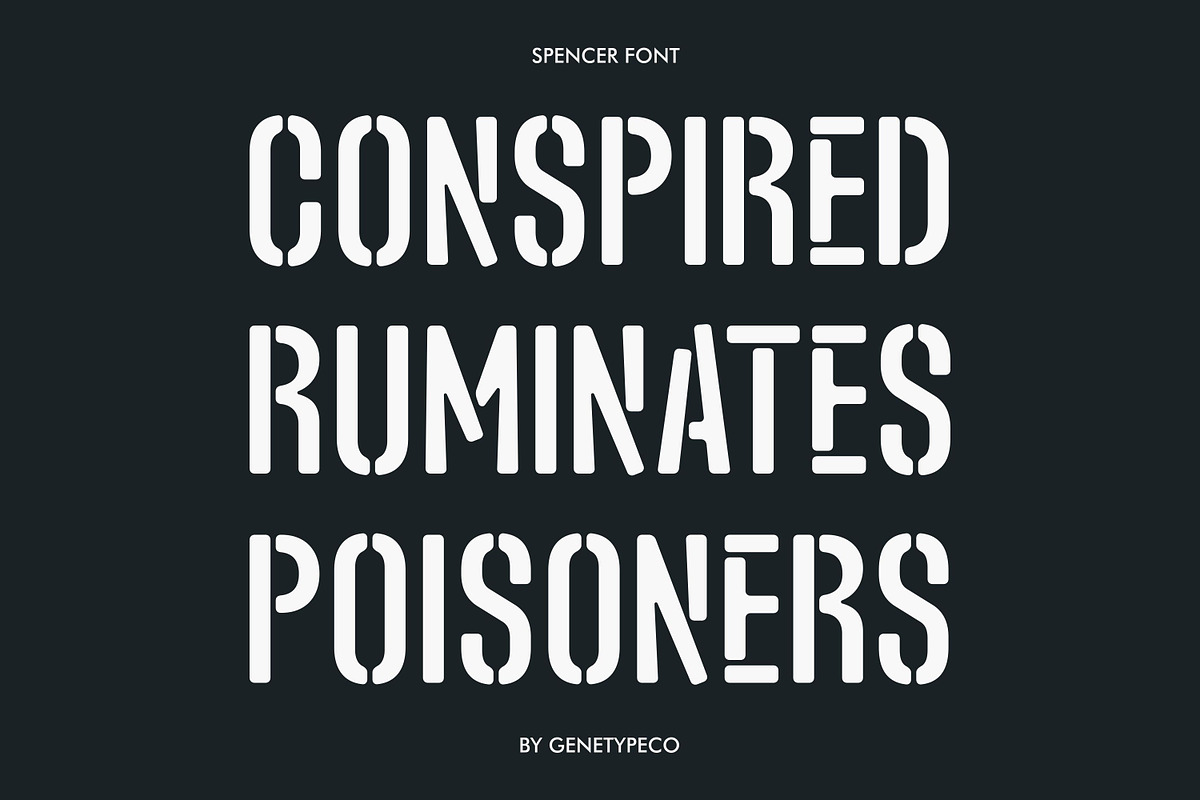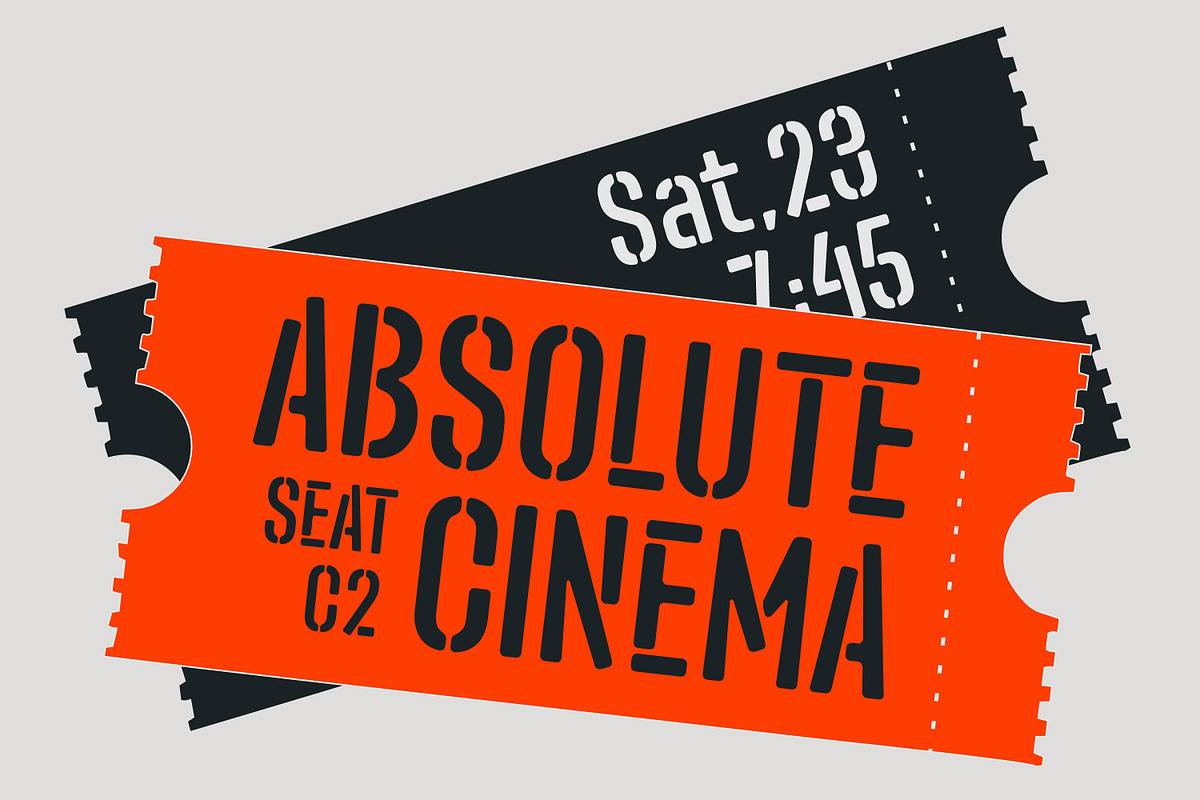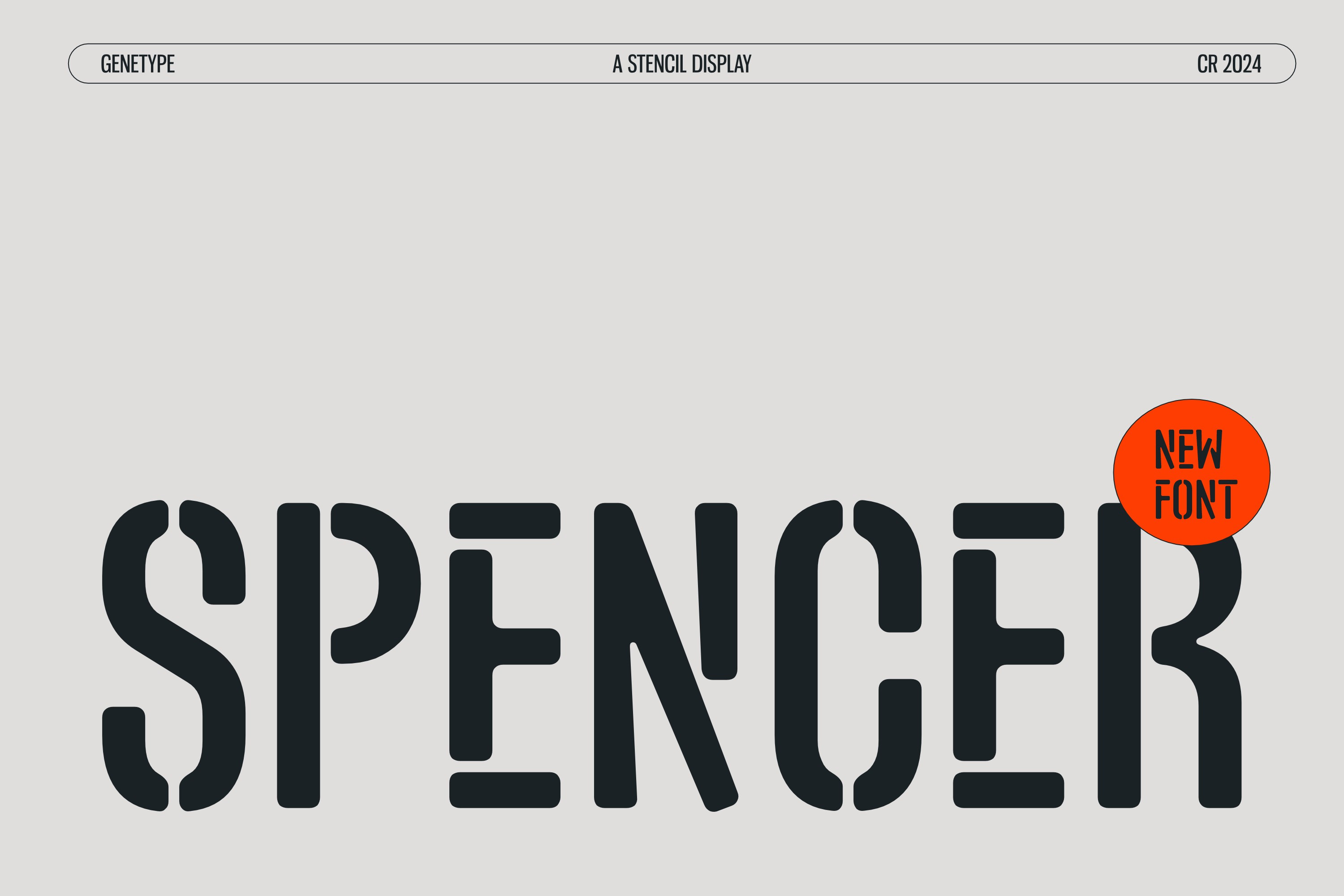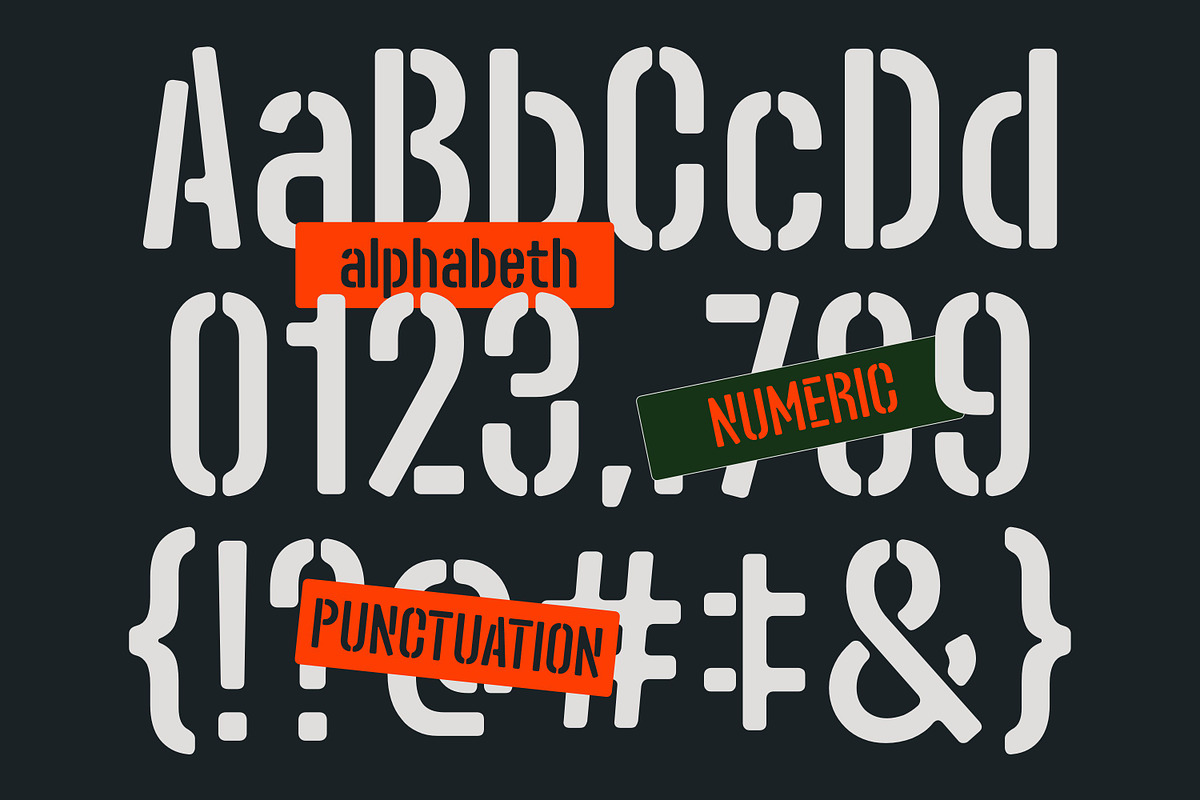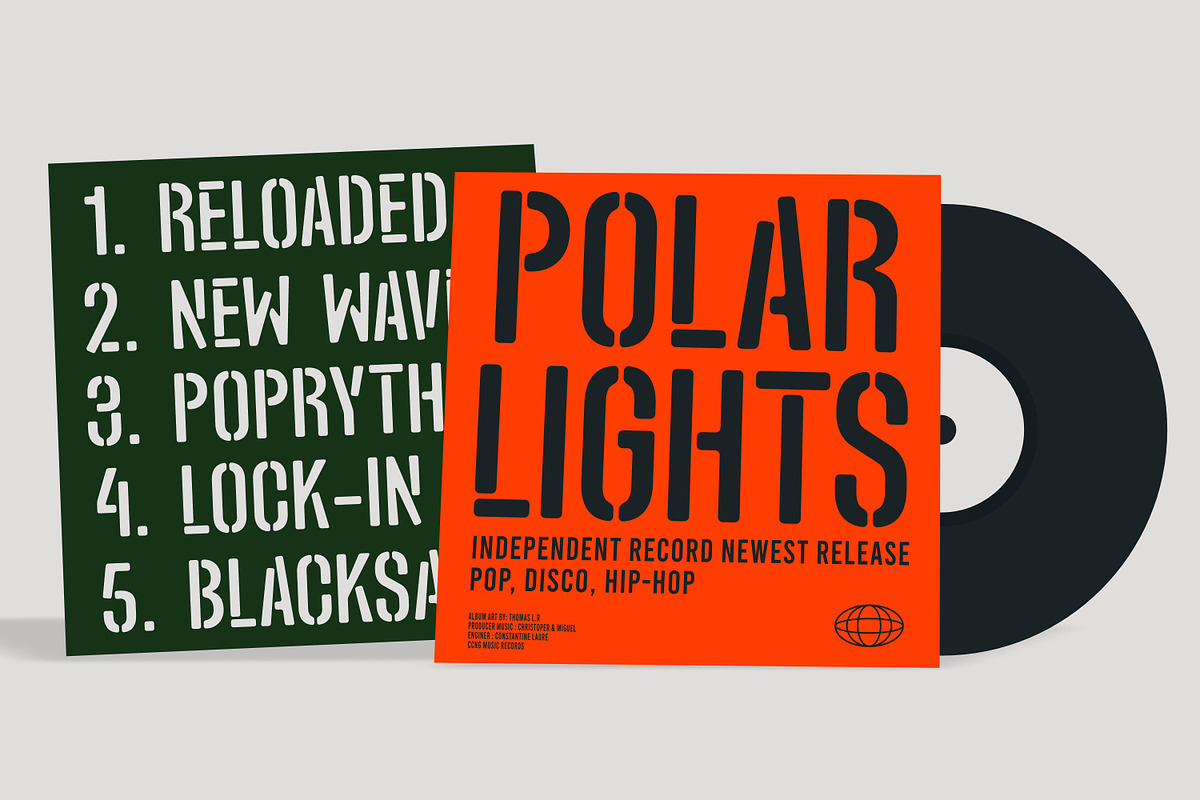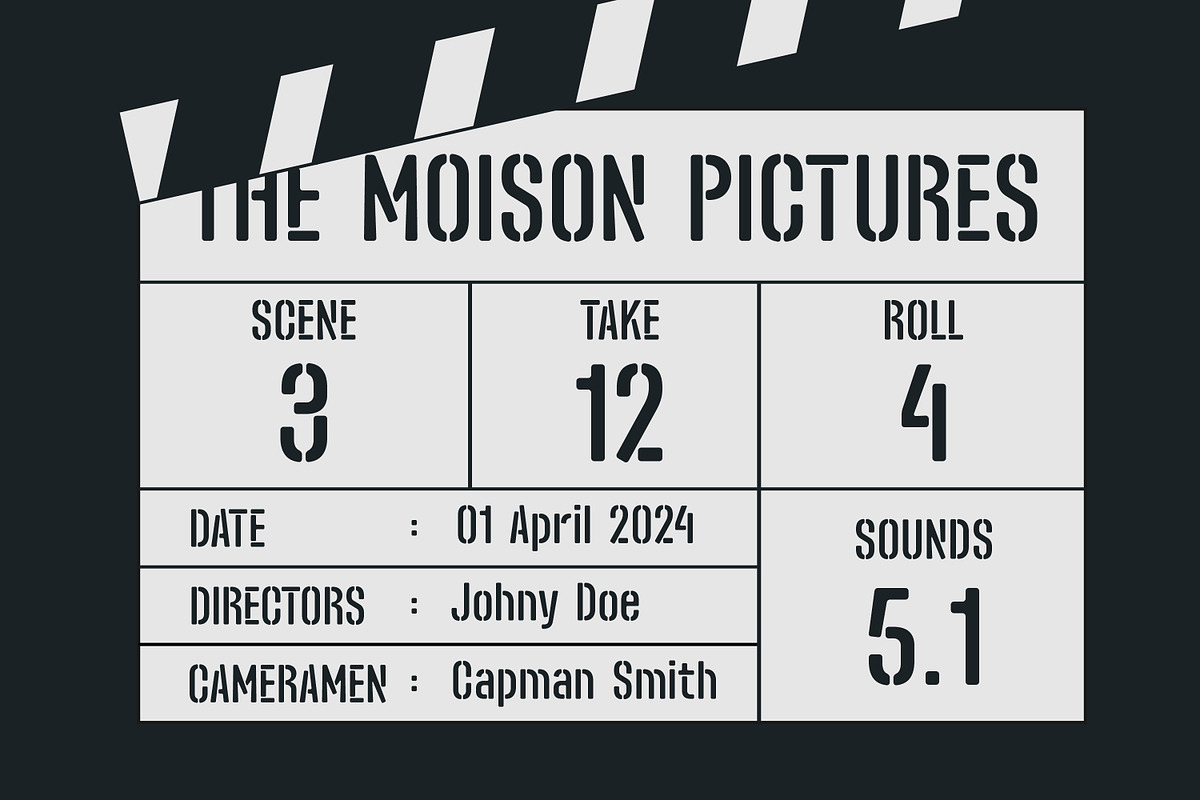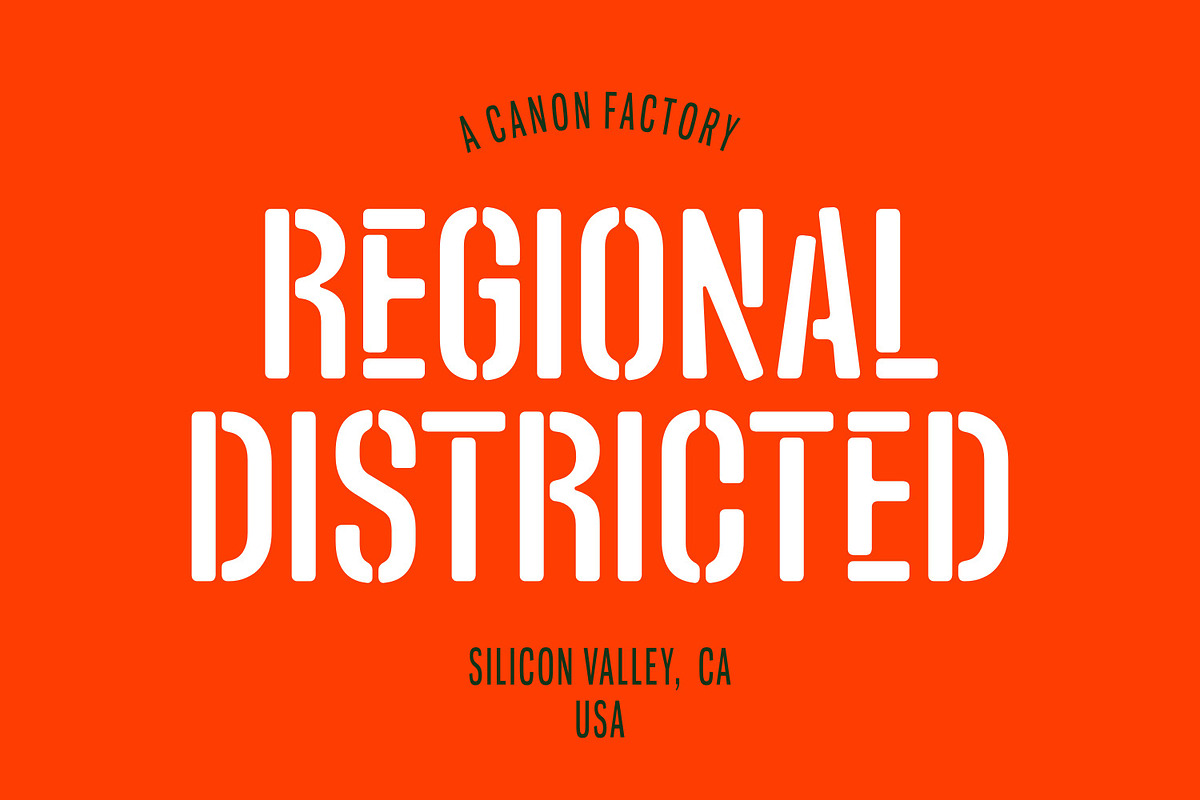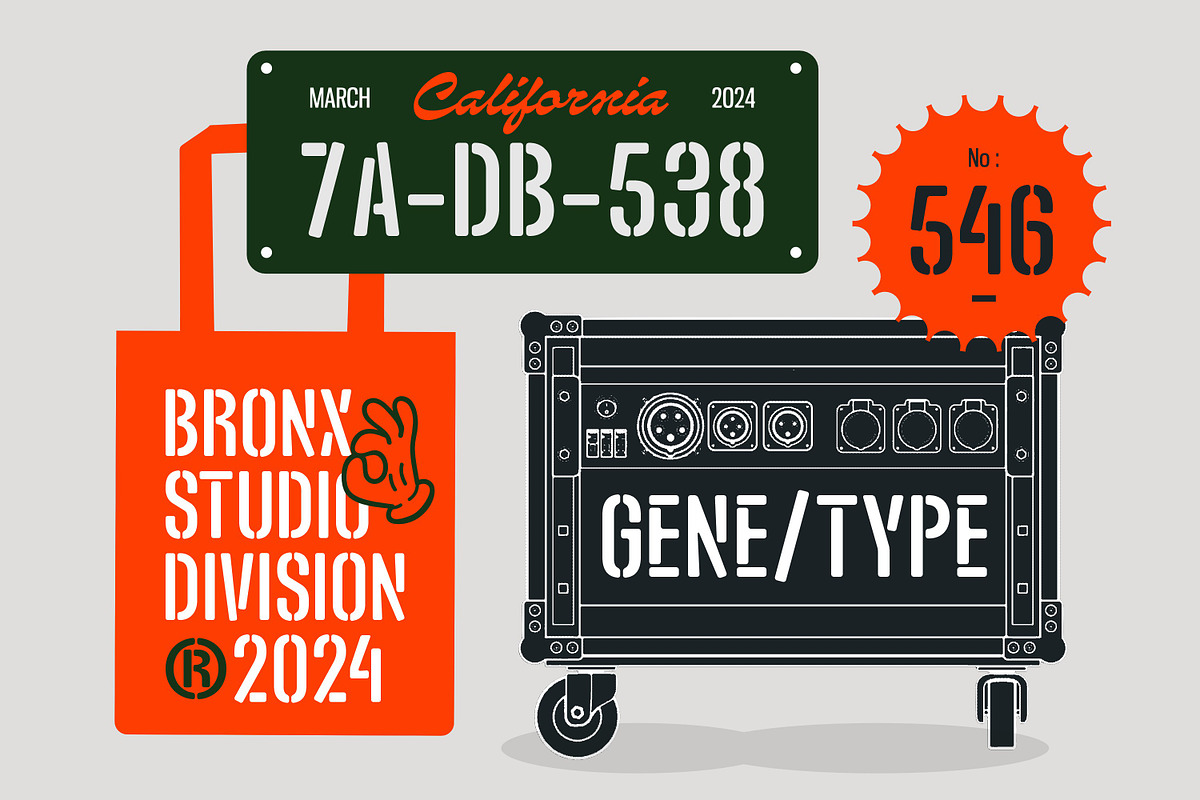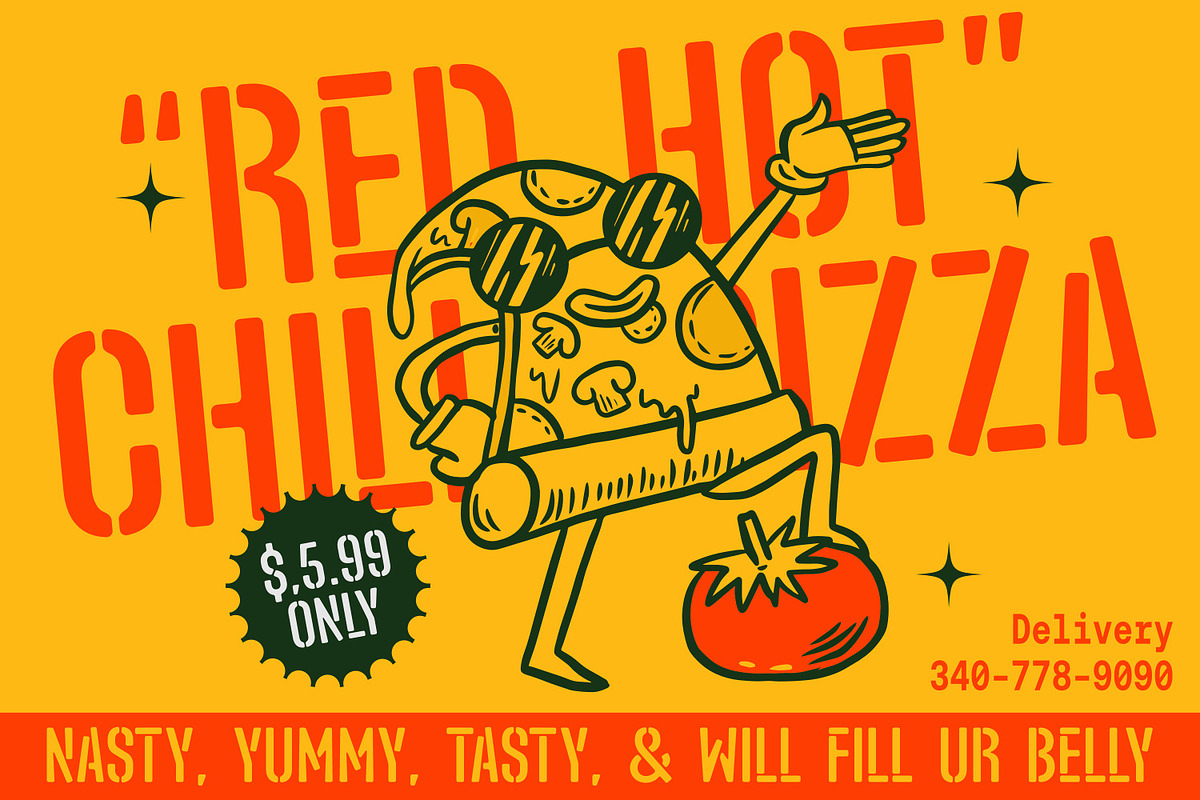
Spencer Stencil Font
Introducing Spencer Font, a bold and distinctive stencil typeface that merges industrial design with contemporary aesthetics. Inspired by the rugged utility of stencil lettering, Spencer features robust strokes and clean cuts that lend it a strong presence on any surface. Perfect for projects seeking a blend of modernity and ruggedness, this font is versatile for branding, posters, and signage. Spencer delivers a unique visual impact while maintaining legibility, making it an excellent choice for projects that demand a bold statement.